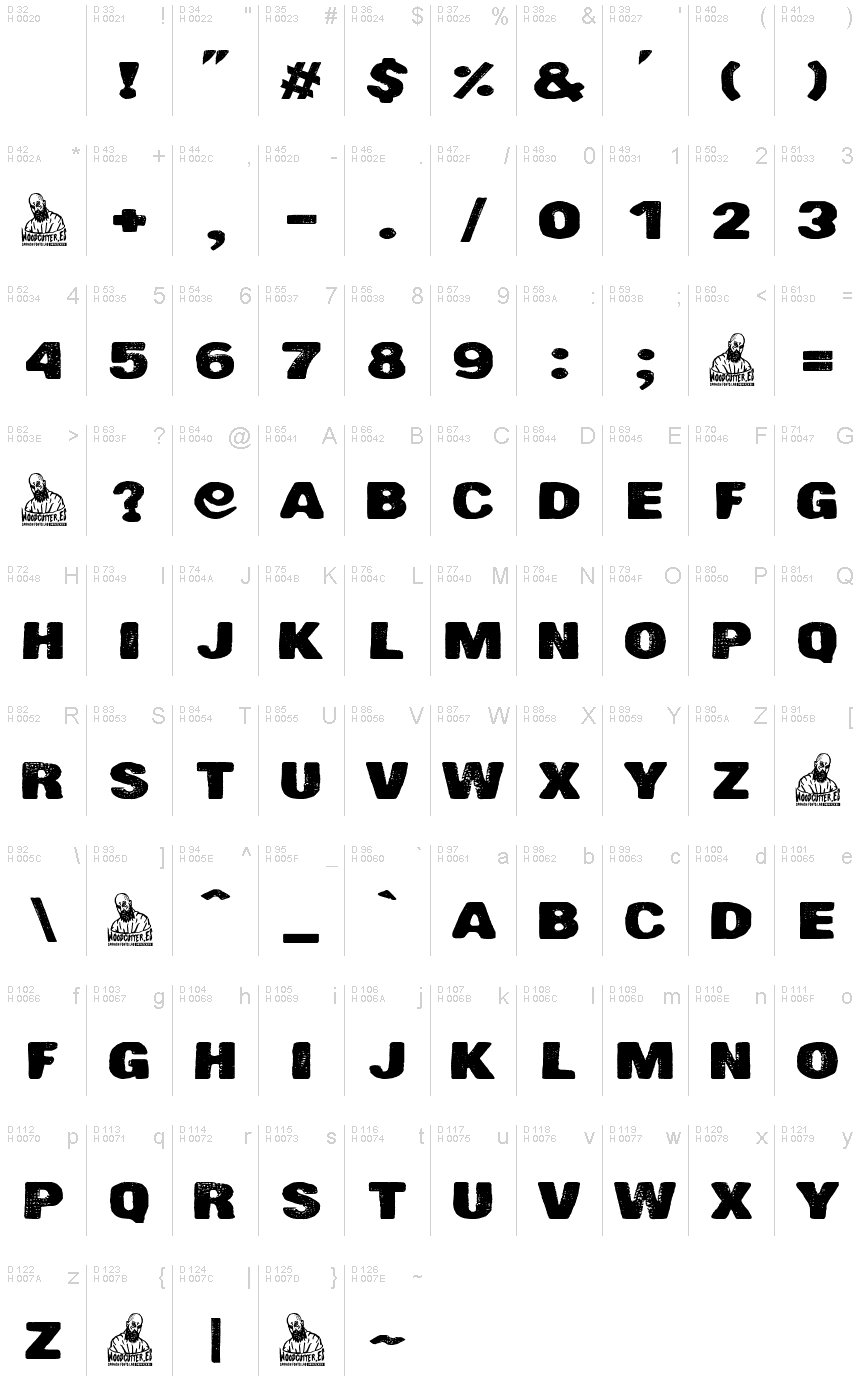
Crimen en Levante
Crimen en Levante, designed by Woodcutter, is a display font that exudes a robust personality with its extra-bold weight and extra-expanded width. Its eroded style imbues it with a raw, gritty edge, reminiscent of street art aesthetics and urban decay. The font's character shapes appear as if they have been weathered by time and the elements, offering an organic sense of depth that can add a touch of rebellion to your designs.
The visual appeal of Crimen en Levante lies in its ability to stand out. It commands attention, making it ideal for impactful headlines, posters, and any project requiring a bold statement. The texture provides an authentic vintage feel while still maintaining readability—a balance not easily achieved in eroded typefaces.
Whether you're crafting branding materials for a music festival, designing edgy apparel graphics or setting the scene for an underground event poster, Crimen en Levante’s aesthetic versatility makes it suitable for diverse creative endeavors that call for a font with character and presence.